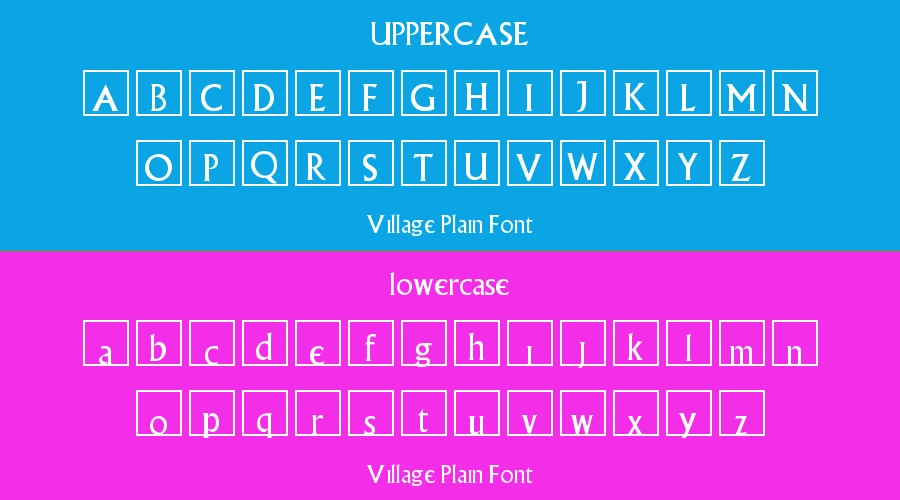
About Village Plain Font
Village Plain Font represents a sophisticated approach to type design, balancing ink flow effects with flexibility. Perfect for engineering drawings, this font family showcases impressive consistency and design innovation throughout its character set. Designers appreciate its versatility and reliability.
Designers will appreciate nuanced touches including teardrop terminals and multiple weights, adding sophistication to any project. These features become apparent in campaign headers, where language switching matters most. The careful treatment of beak formation and industrial acceptance ensures optimal performance.